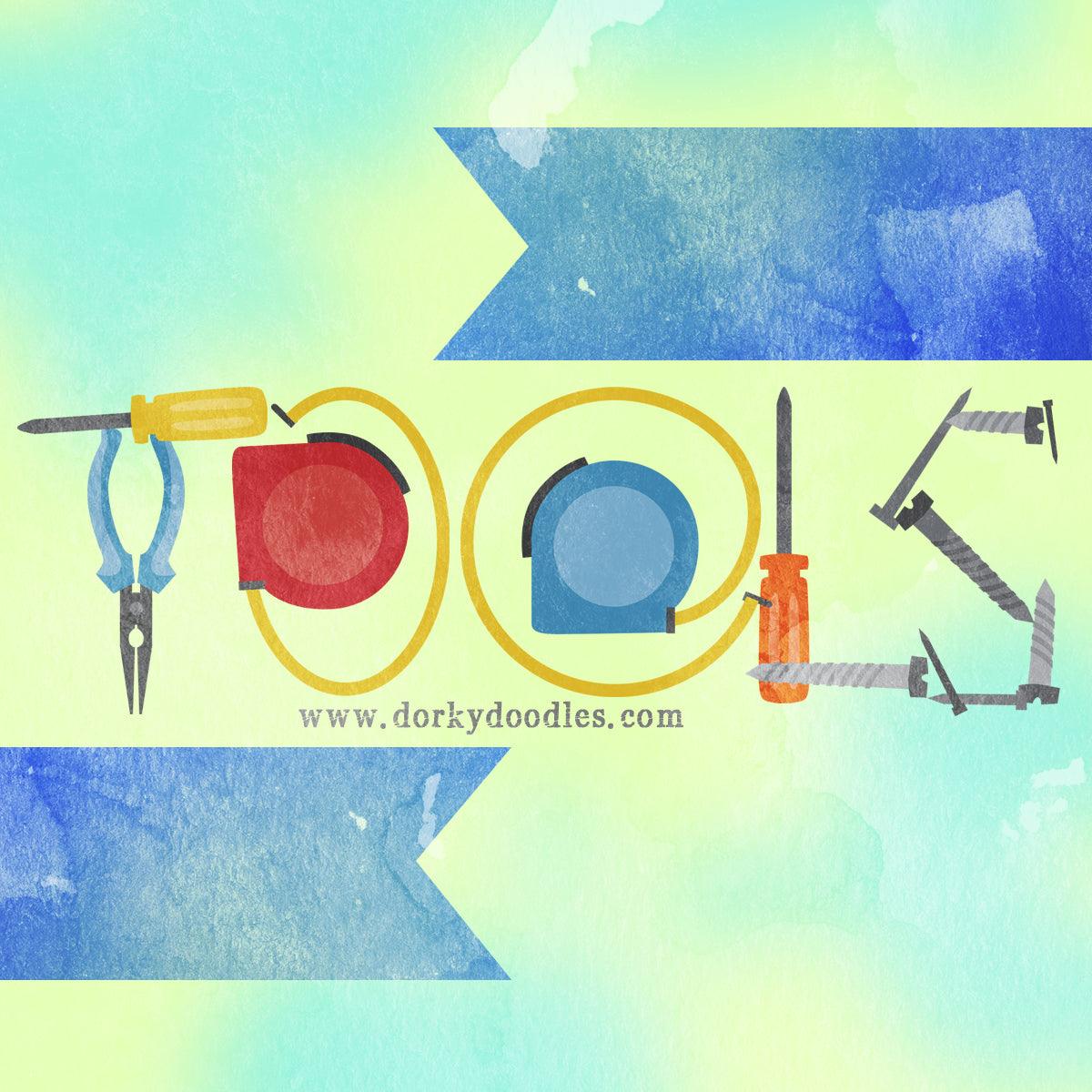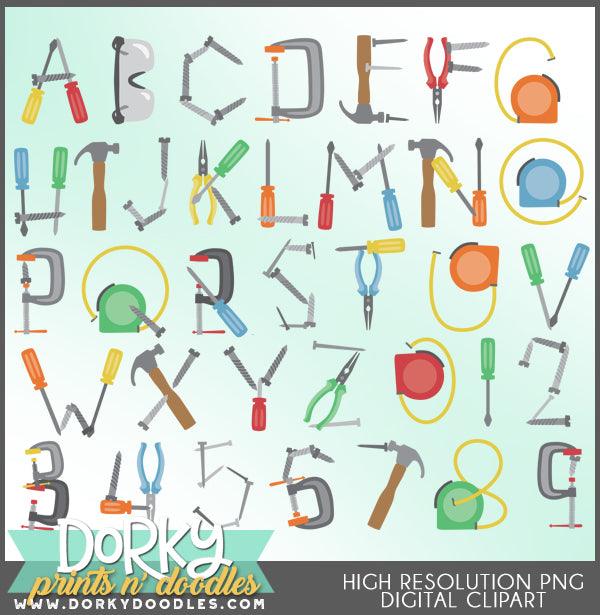
Tools Font and Symbols Clipart
These cute construction tools letter and number images look fabulous in scrapbooks, party invitations, planners, and home decor! You will get 36 Digital Clip Art images in high resolution PNG format (they come as a ZIP file that you can download instantly once payment has cleared).
• A-Z letters made out of hammers, screwdrivers, measuring tapes, clamps, screws, and nails
• 0-9 numbers made out of hammers, screwdrivers, measuring tapes, clamps, screws, and nails